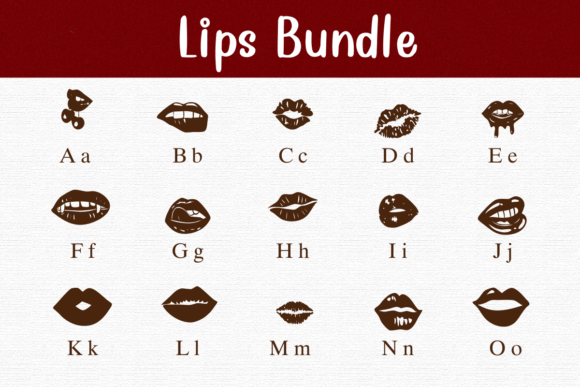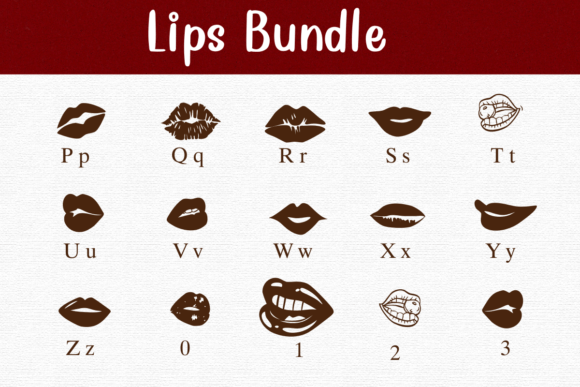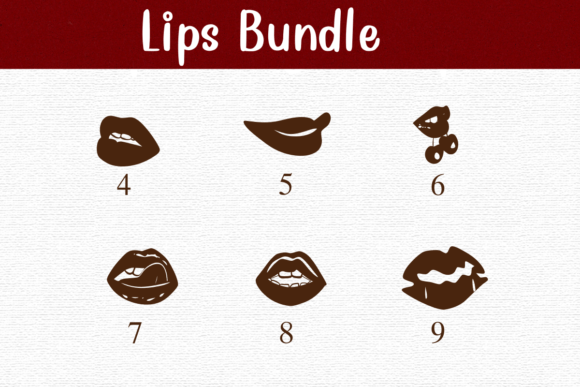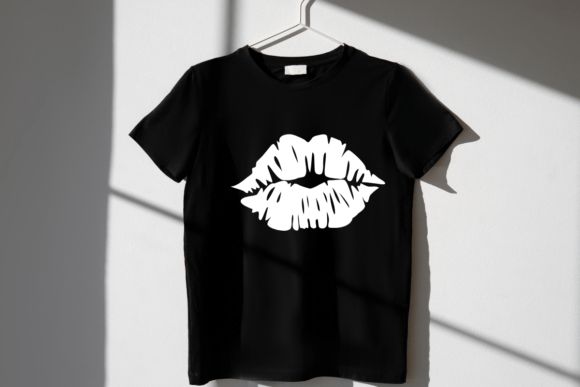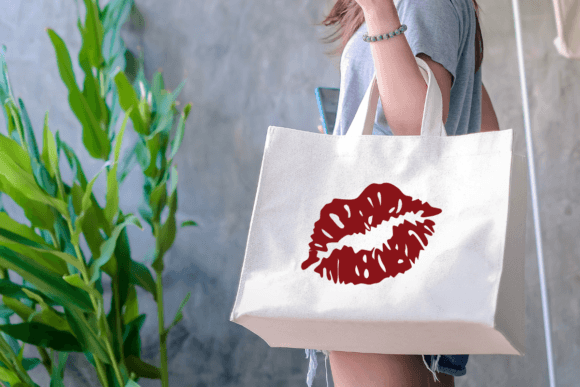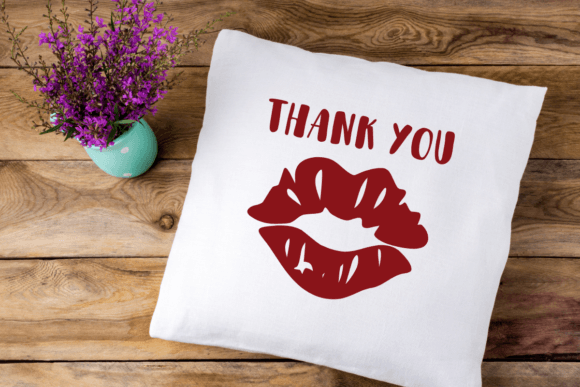
Introduction to Lips Bundle Font
Remember that moment when you stumbled upon the perfect font to elevate your design project? It’s like a spark of creativity ignites, and your ideas start flowing. That’s what happened to us when we discovered the Lips Bundle Font. This unique font is a game-changer for designers looking to add a playful twist to their work.
So, what’s so special about the Lips Bundle Font? It’s a font where each letter is replaced by a small picture of lips, giving your text a fun and quirky touch. Imagine typing with tiny drawings instead of regular letters – it’s like having a secret language that adds a personal touch to your designs. The Lips Bundle Font is a high-quality design resource that’s perfect for creative projects, and the best part? It’s available for a free download with a transparent background, making it easy to incorporate into your designs.
As a designer, you understand the value of having the right tools to bring your ideas to life. The Lips Bundle Font is a valuable addition to any design library, offering a unique and creative way to express yourself.
Key Features of Lips Bundle Font
- High-quality design resource perfect for creative projects
- Includes a range of lip and mouth designs to suit different creative needs
- Unique characteristic: Customizable and editable design elements for added flexibility
Honest Review: Lips Bundle Font
I recently stumbled upon the Lips Bundle Font and I must say, I’m quite impressed. As a designer, I’m always on the lookout for high-quality design resources to elevate my creative projects.
The Lips Bundle Font is a fantastic addition to my collection, offering a range of stylish and modern fonts that are perfect for logos, branding, and other design elements.
- ✨ High-quality fonts that are perfect for logos and branding
Overall, I’m impressed with the Lips Bundle Font and would definitely recommend it to designers who are looking for a high-quality design resource. While it may have some limitations, the benefits far outweigh the drawbacks.
Lips Bundle Font
The Lips Bundle Font is a free download that offers high-quality design resources for your creative project. It’s a versatile font that can be used for a variety of purposes, from logos to typography.
Tips for Getting the Most Out of the Lips Bundle Font
To get the most out of the Lips Bundle Font, use it on a transparent background to create a unique and eye-catching design. Experiment with different font sizes and styles to add visual interest to your project.
The Lips Bundle Font is ideal for:
- Branding materials